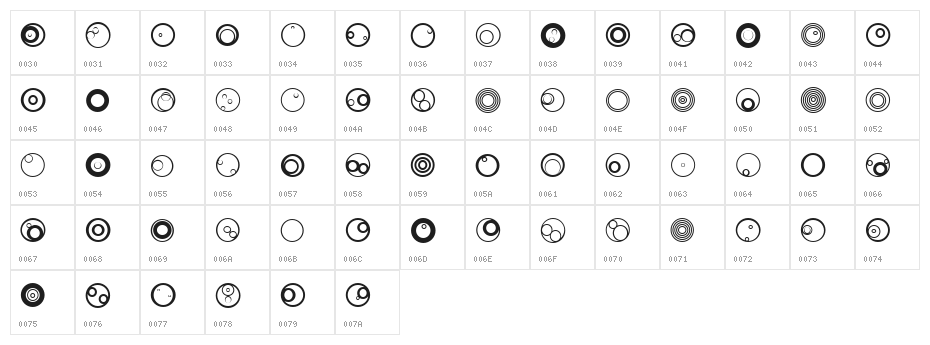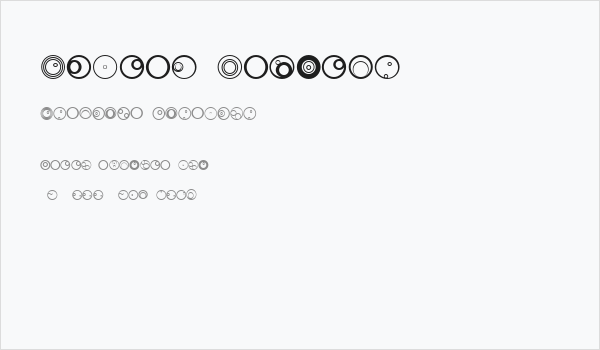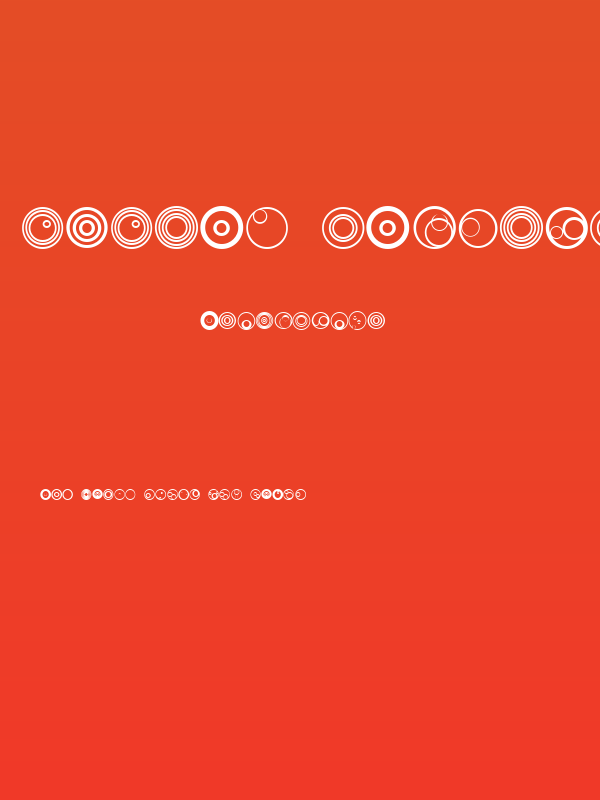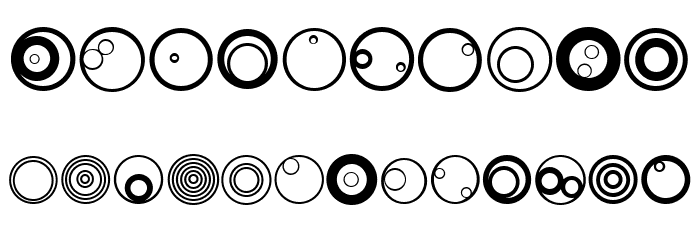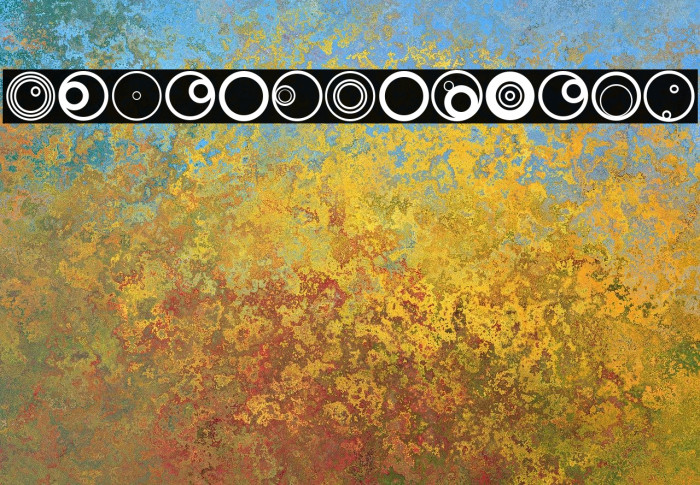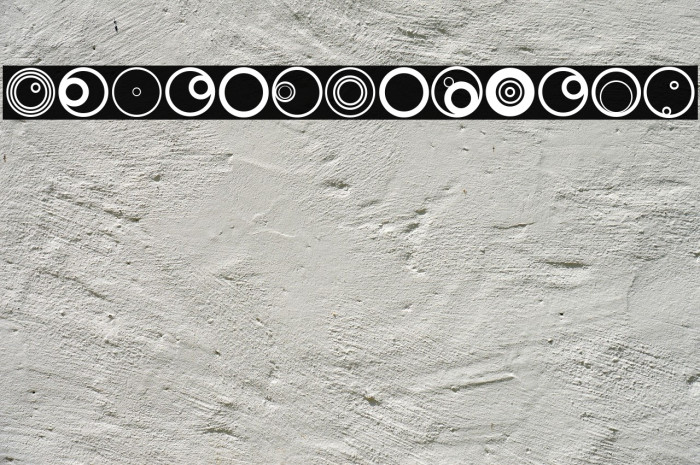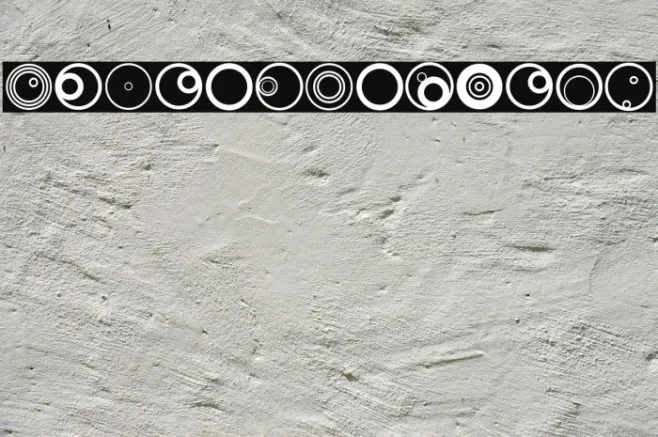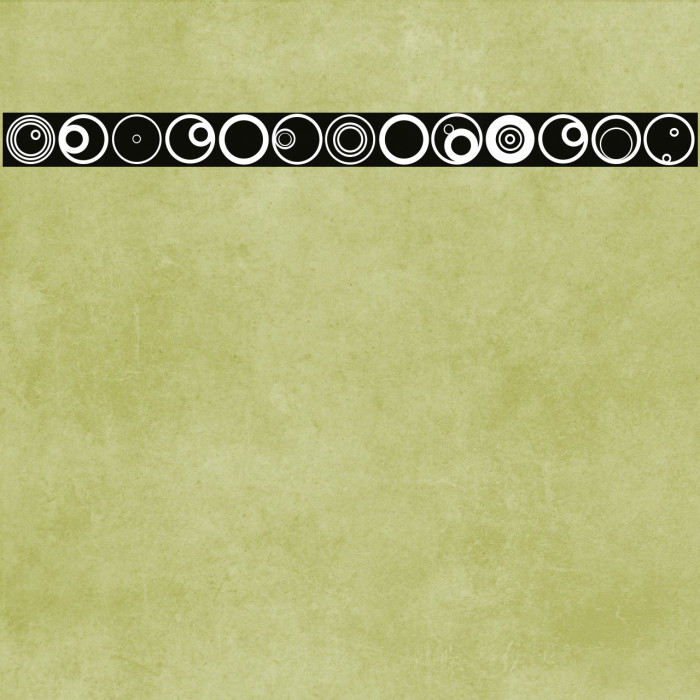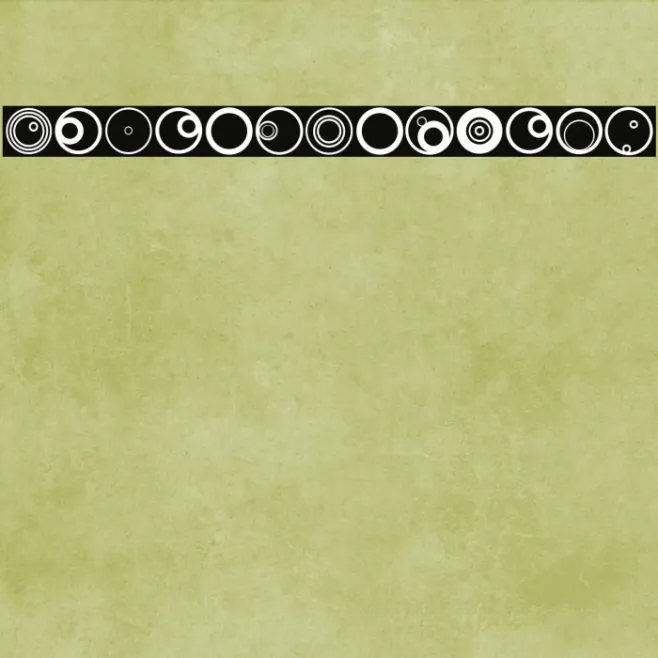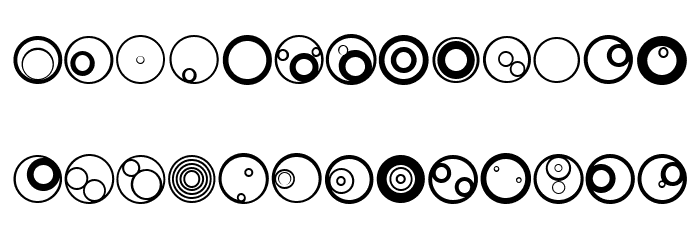
Cycles Regular Font
Cycles Regular Description
This design features a series of circular patterns that vary in complexity and density. Each character is represented by a unique arrangement of concentric circles, dots, and solid fills, creating a visually striking and abstract appearance. The design is highly decorative, with a modern and artistic flair that emphasizes geometric shapes and symmetry. The circles are bold and prominent, with some characters featuring intricate internal patterns, while others are more minimalistic. This style is ideal for creative projects that require a unique and eye-catching visual element.
| Use Case | Logos, Decorative elements, Art installations |
| Proposed Projects | Ideal for artistic projects, modern art pieces, graphic design elements, and decorative posters. |